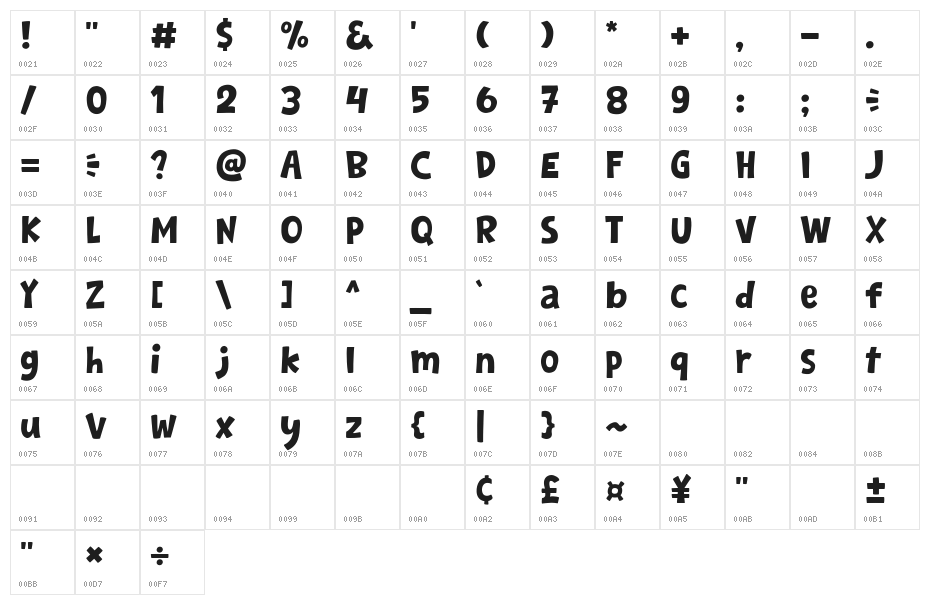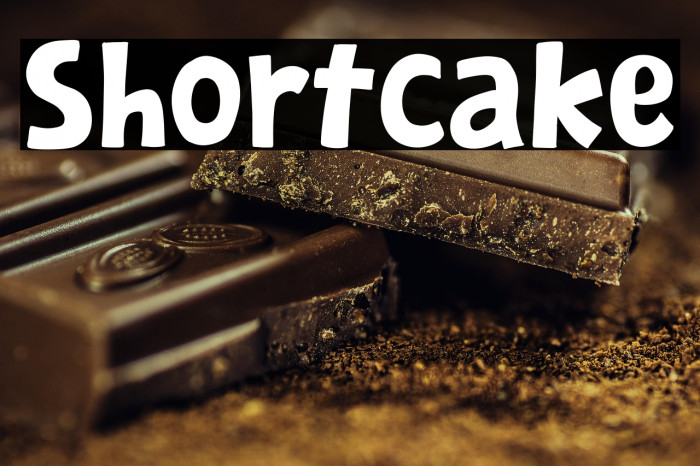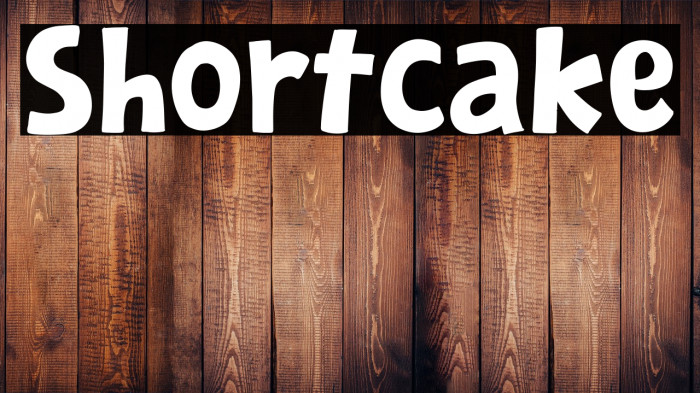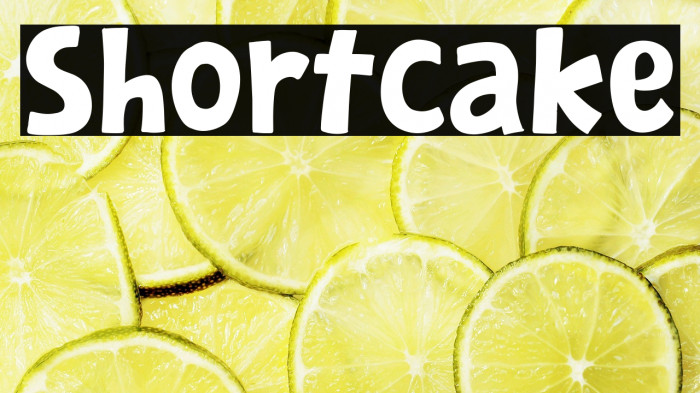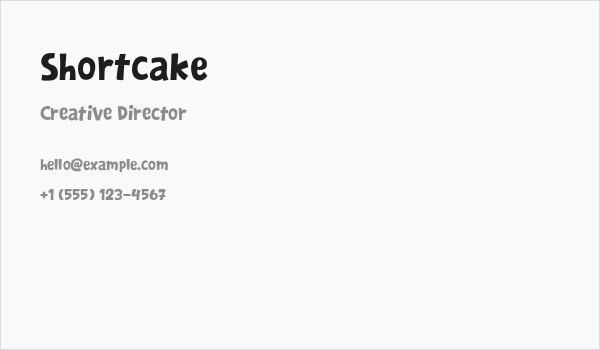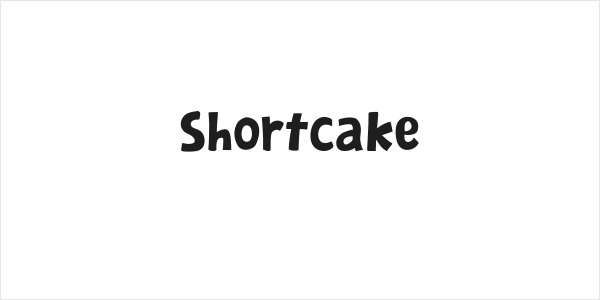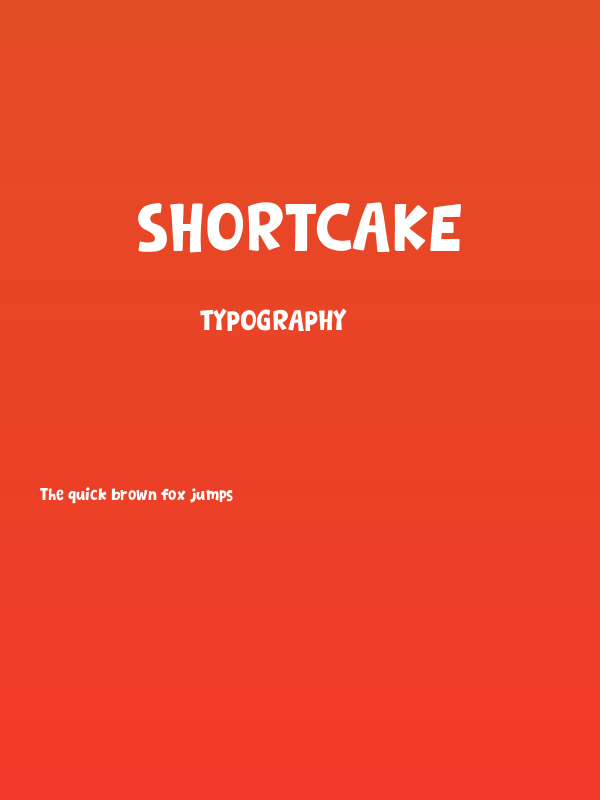
Shortcake Font
Shortcake Description
This playful and bold font features a whimsical, hand-drawn style that exudes a sense of fun and creativity. The letters are rounded and slightly irregular, giving them a casual and approachable feel. The uppercase and lowercase characters maintain a consistent style, with a slight tilt that adds to the dynamic appearance. Numbers and special characters are equally bold and expressive, making them stand out. The overall design is perfect for projects that require a touch of personality and charm.
| Proposed Projects | Ideal for children's books, playful branding, greeting cards, and creative posters. |